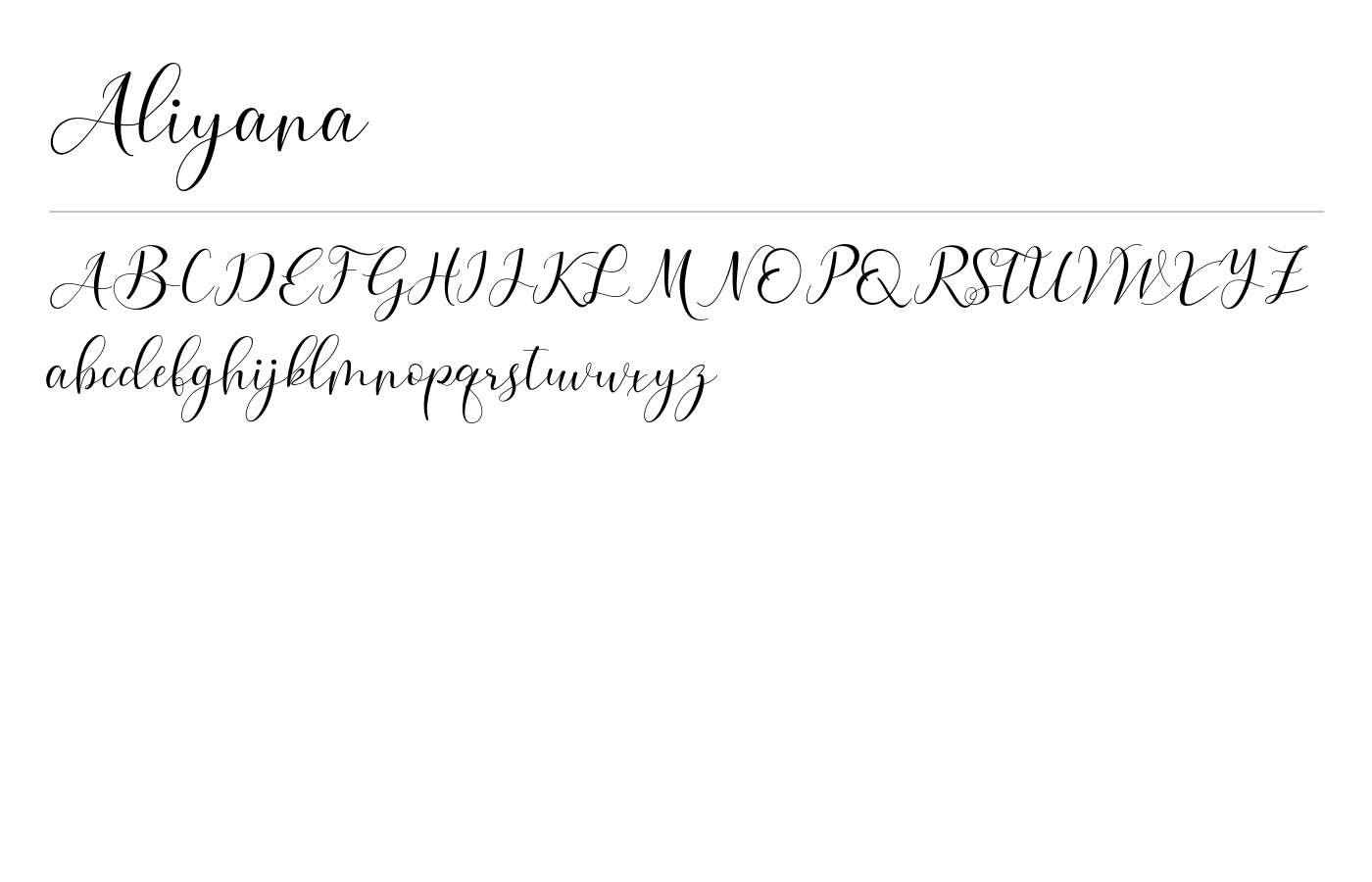
Aliyana is an elegant, cursive script font characterized by its graceful, flowing strokes and delicate swashes that add a refined, feminine touch. Its thin, calligraphic lines and tall x-height make it perfect for sophisticated branding, wedding invitations, and stylish editorial projects where a romantic, classy mood is desired. This font shines in headlines and decorative text, bringing a sense of luxury and charm to any design.
Aliyana Font